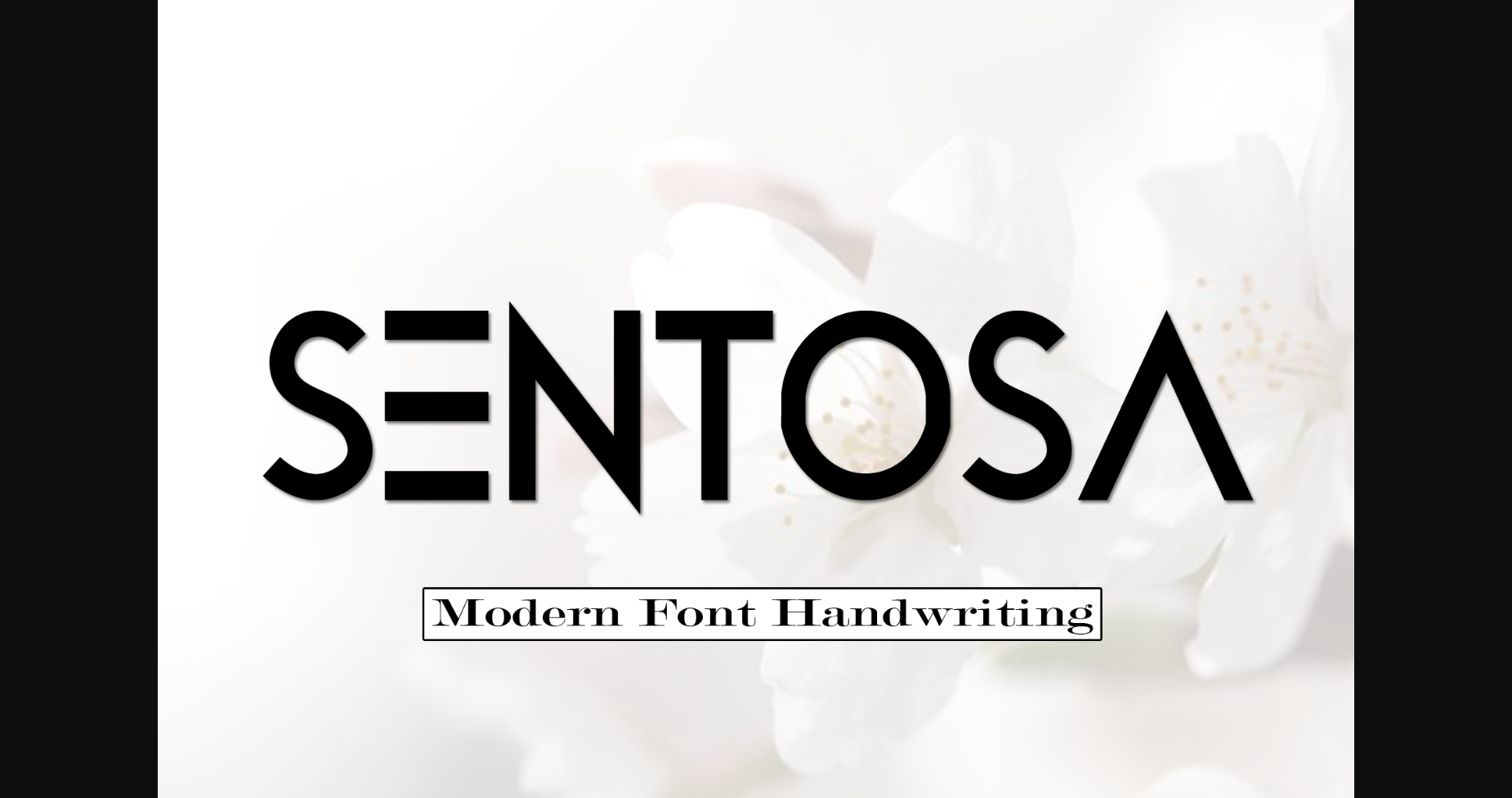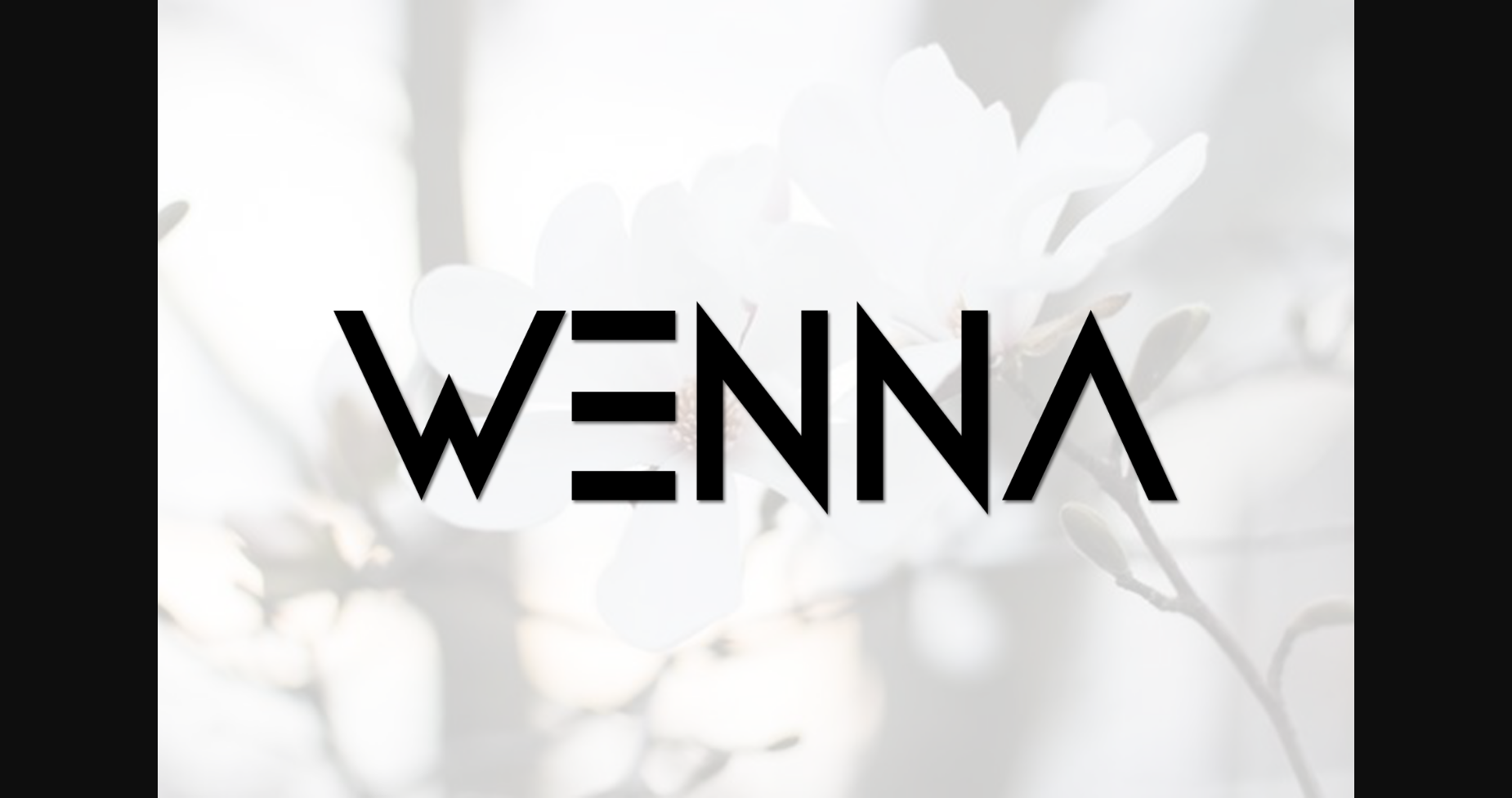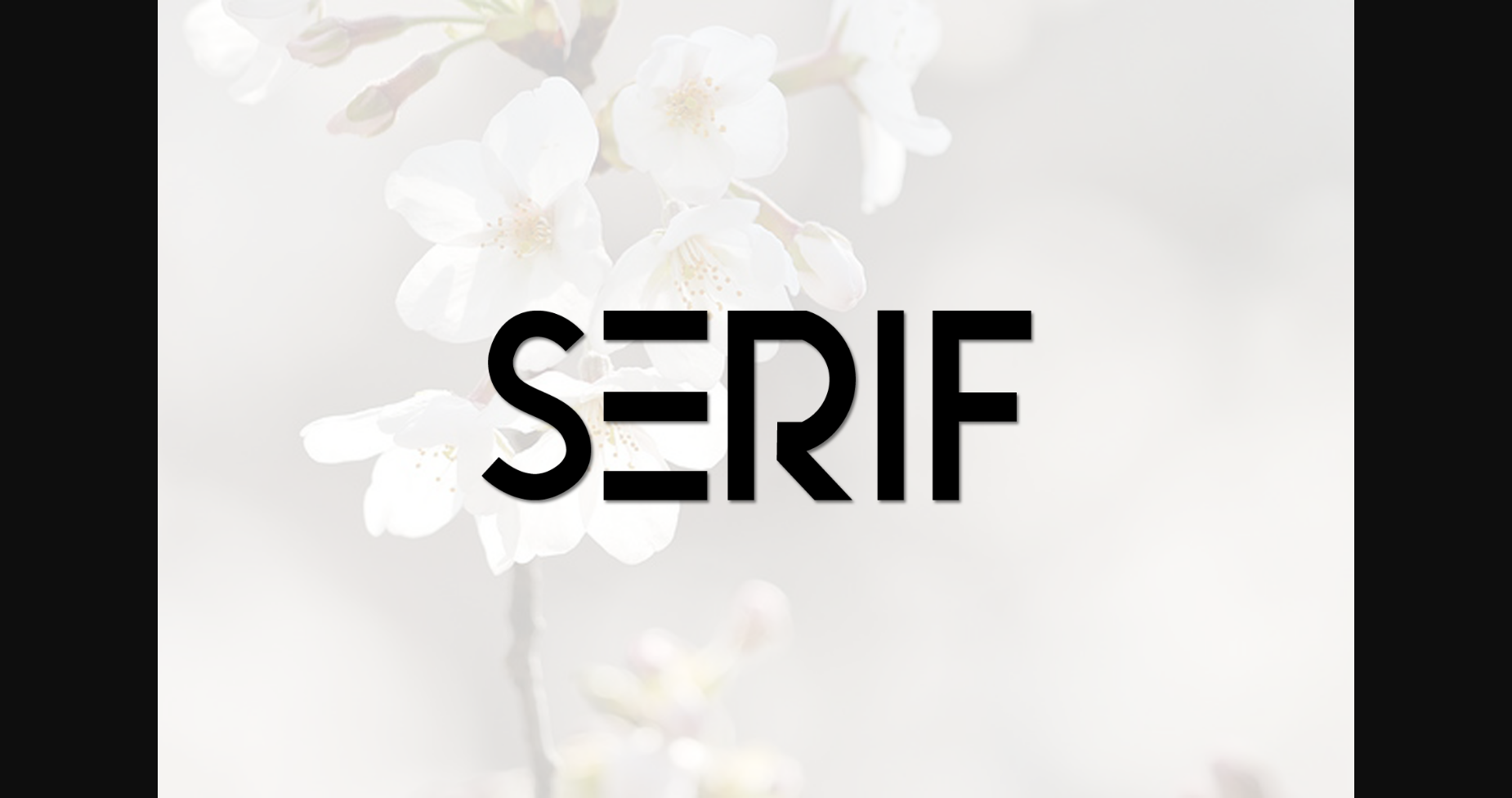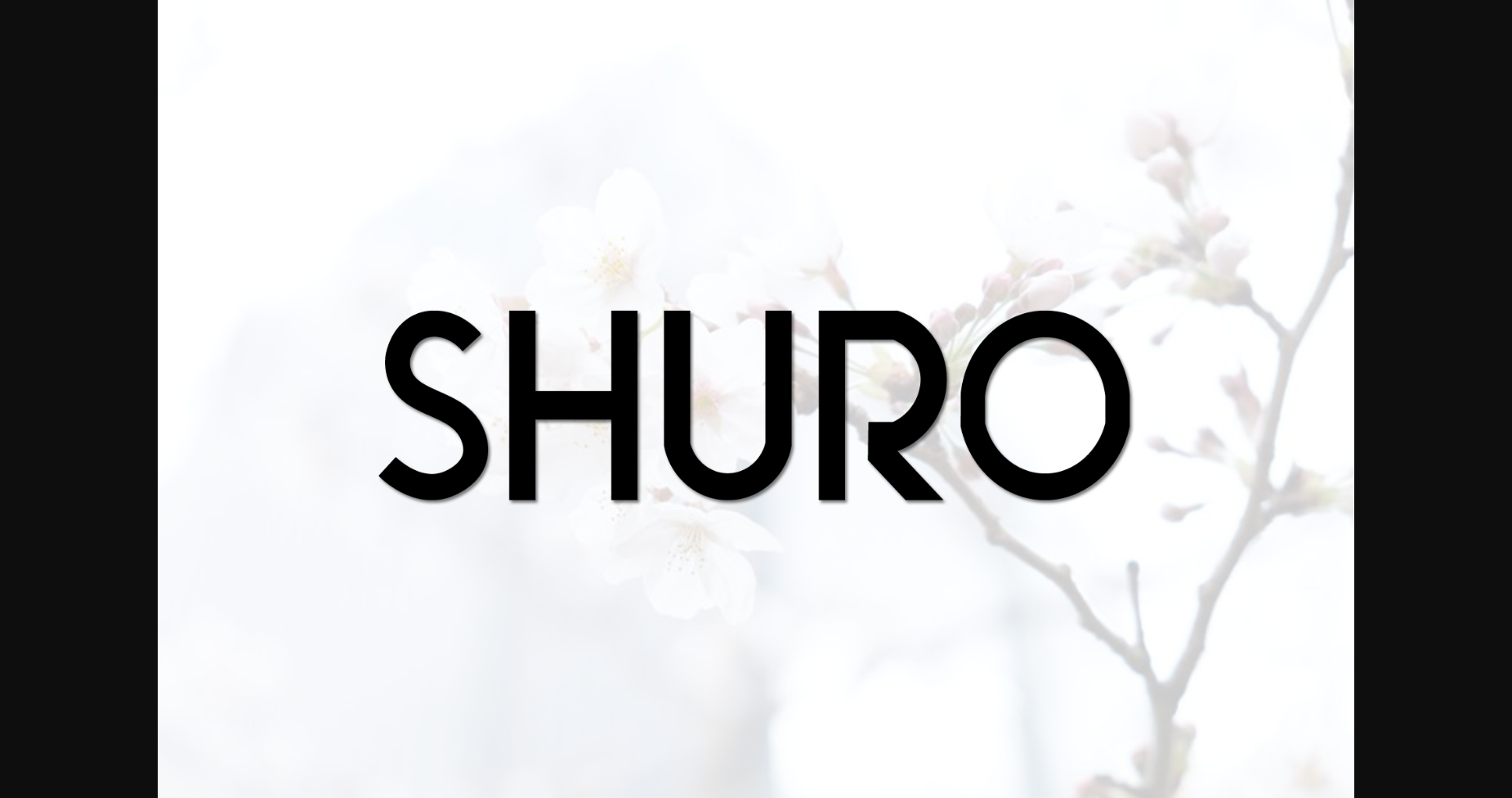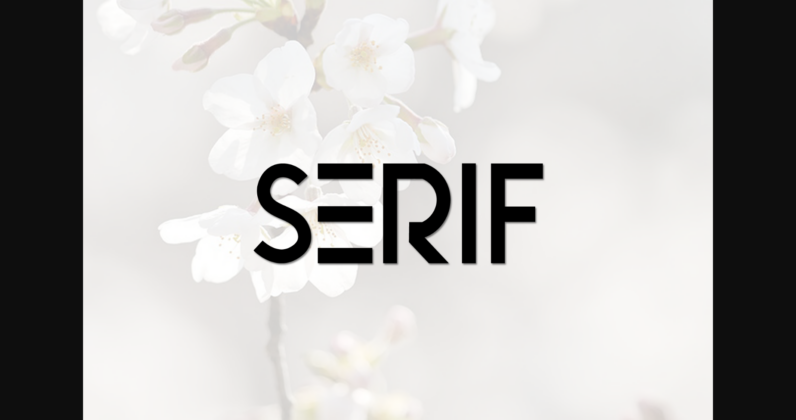
About Sentosa Font
Sentosa is a stylish and very elegant sans-serif font. It looks impressive on wedding invitations, thank you cards, quotes, greeting cards, logos, business cards, and any other design that calls for a handwritten touch.